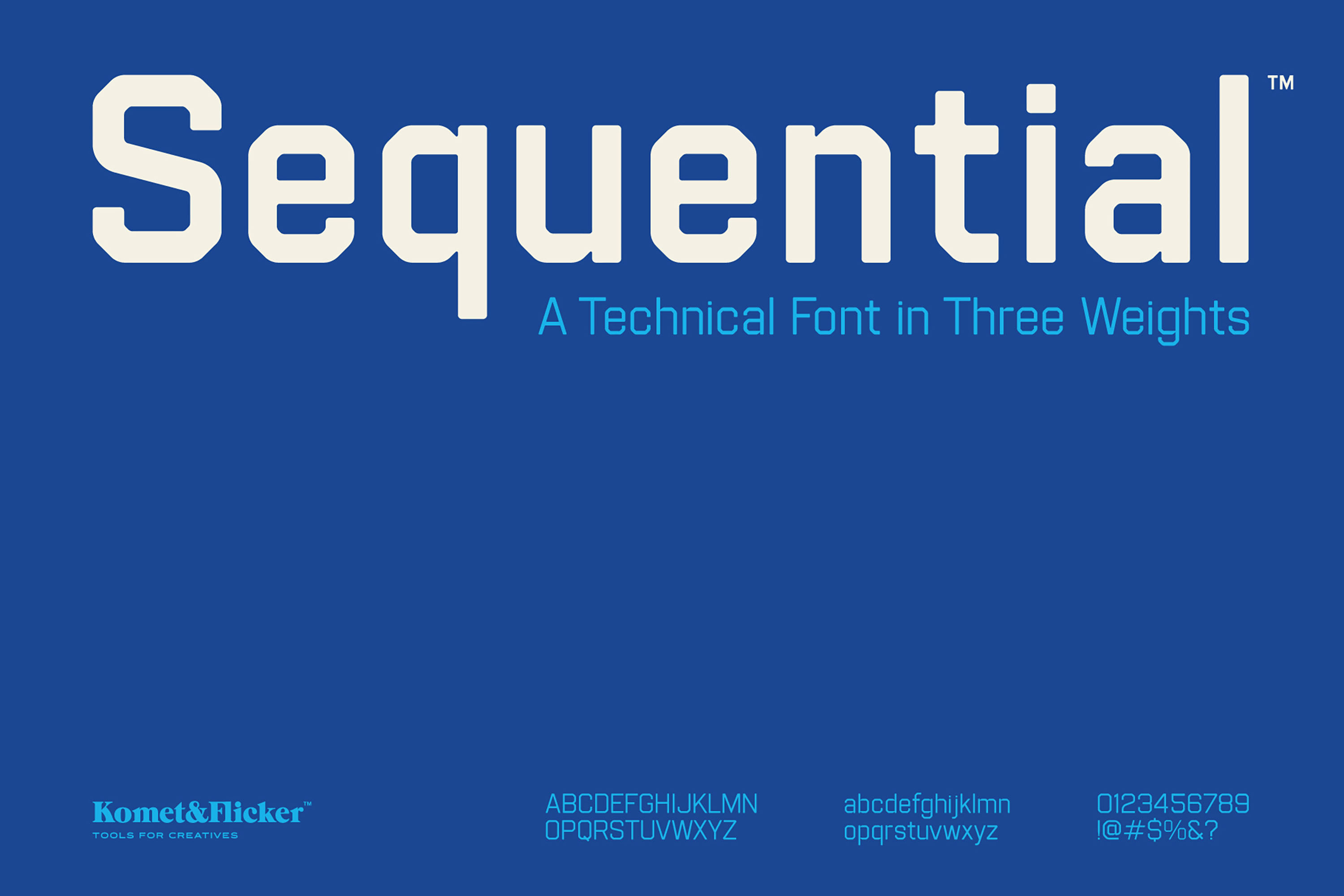
Sequential - A Technical Font
Introducing Sequential – a font designed to bring precision and clarity to your design projects. With its sleek, and orderly technical style, Sequential stands out as a great choice for conveying information with a modern, professional touch.
Available in three versatile weights – Light, Medium, and Bold – Sequential adapts seamlessly to your needs, whether you're crafting technical documents or bold, eye-catching headlines. Its design ensures exceptional readability in both all caps and upper & lowercase uses, making it ideal for a range of applications from detailed reports to dynamic branding materials.
Full A-Z uppercase and lowercase basic latin characters
Select European specific characters
Numbers, punctuation, and select symbols
Set of 15 custom connecting word glyphs